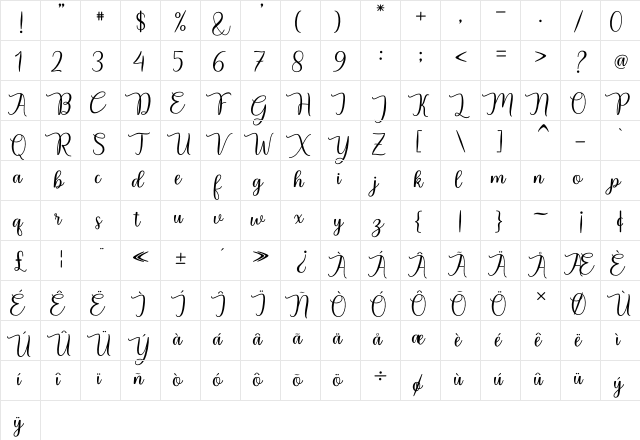
Decembery Regular
| Foundry | Kong Font |
| Designer | Kong Font |
Design Context for Decembery Typeface
Decembery is a composed and adaptable typeface that performs quietly and consistently across a wide range of design contexts.